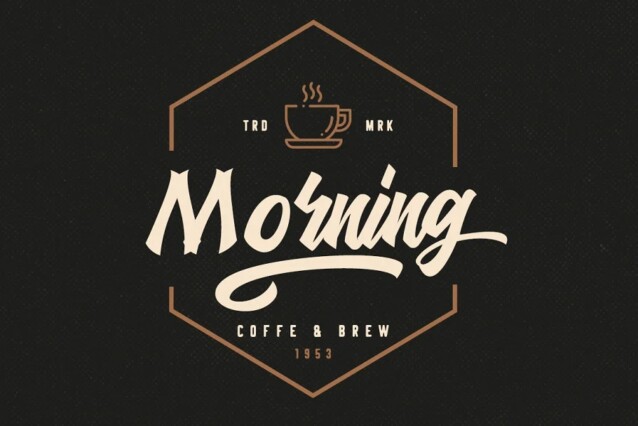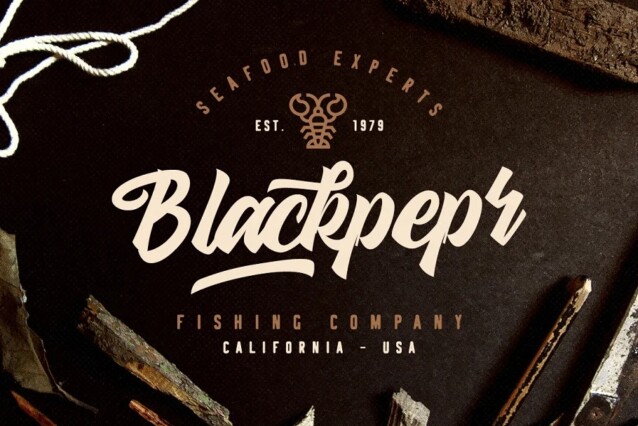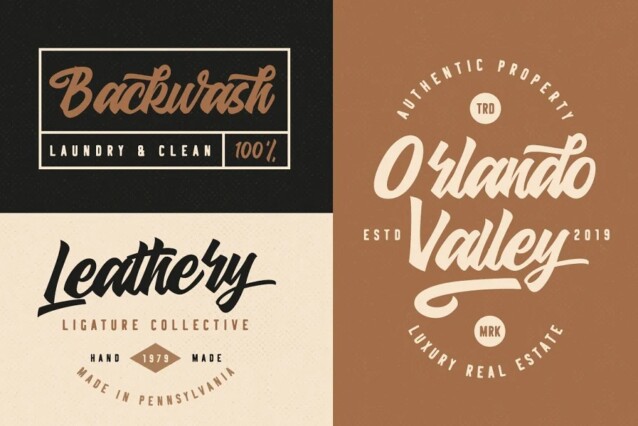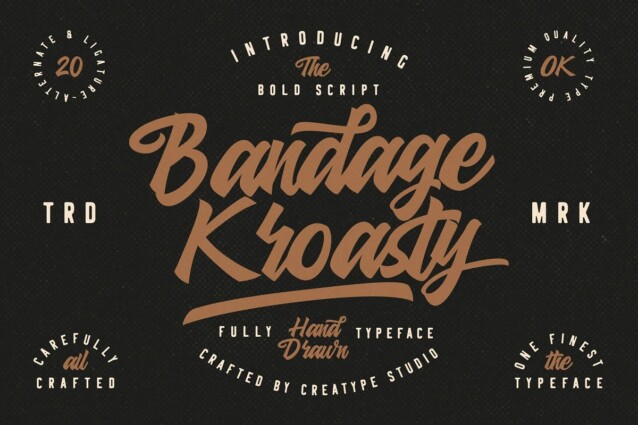
Bandage Kroasty Font
Bandage Kroasty Font is a strong and bold script font manufactured by Creatype Studio. carefully crafted with hand lettering. that contains many stylistic alternate and swashes that will help you to create your own customized design. Bandage Kroasty is perfect for branding projects, logo, wedding designs, social media posts, advertisements, product packaging, product designs, label, photography, watermark, invitation, stationery and any projects that need handwriting taste.